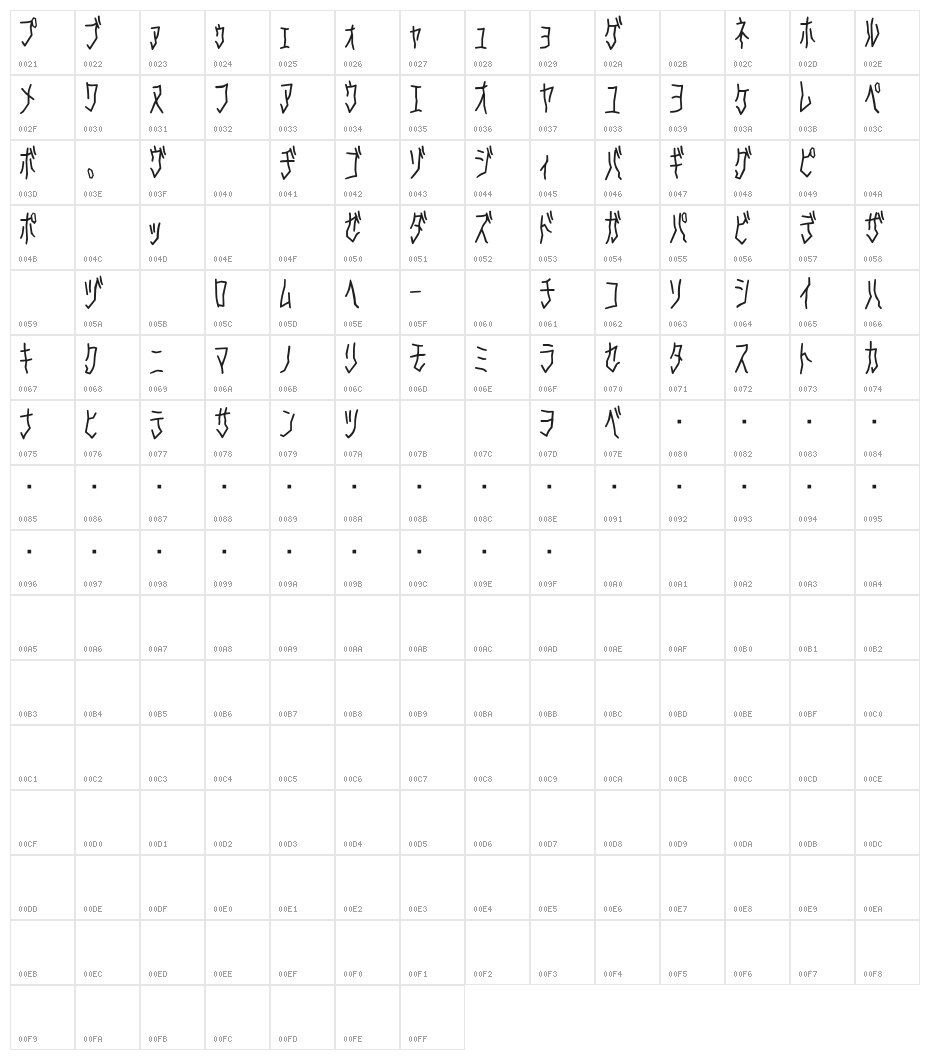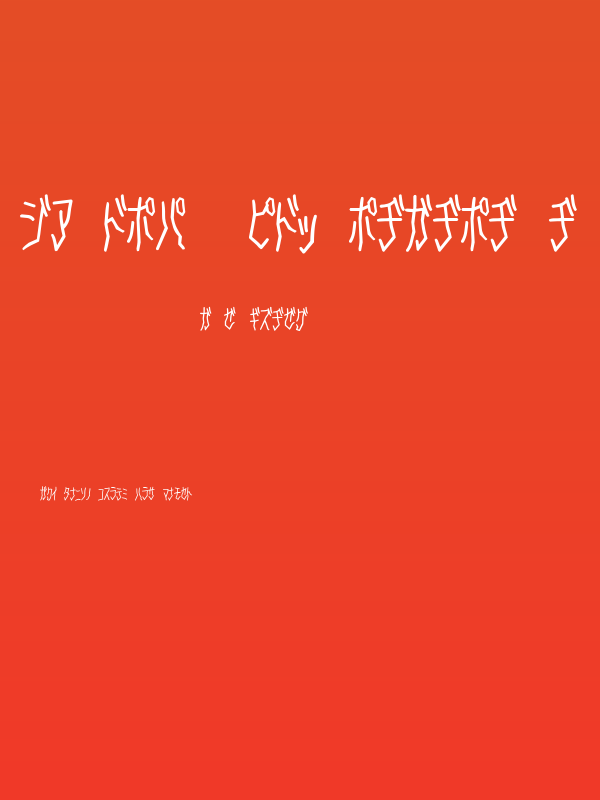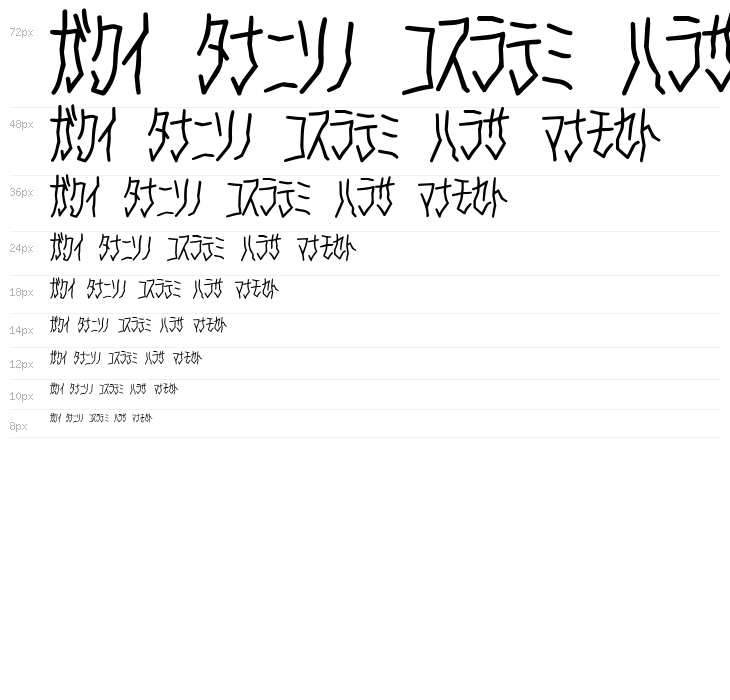
D3 Skullism Katakana Font
D3 Skullism Katakana Description
This font features a bold, edgy design inspired by the aesthetics of skulls and gothic themes. The characters are sharp and angular, with a hand-drawn appearance that adds a sense of rawness and intensity. The strokes are uneven, giving each character a unique, almost rebellious feel. The font captures a sense of movement and energy, making it ideal for projects that require a dramatic and impactful visual presence. Its distinctive style is perfect for creating eye-catching headlines or logos that need to stand out.
| Overall Style | Gothic, Edgy, Hand-drawn |
| Proposed Projects | Ideal for album covers, posters, tattoos, and branding for alternative or gothic-themed products. |